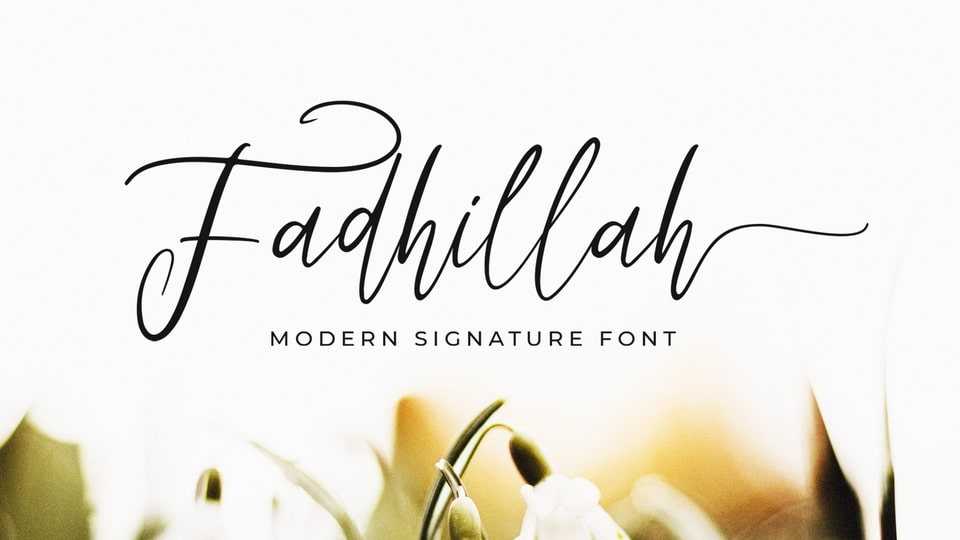
Download Fadhillah Signature font, an elegant handwritten unique flow script with a natural and organic look. It is perfect for branding projects, logos, wedding designs and so on.